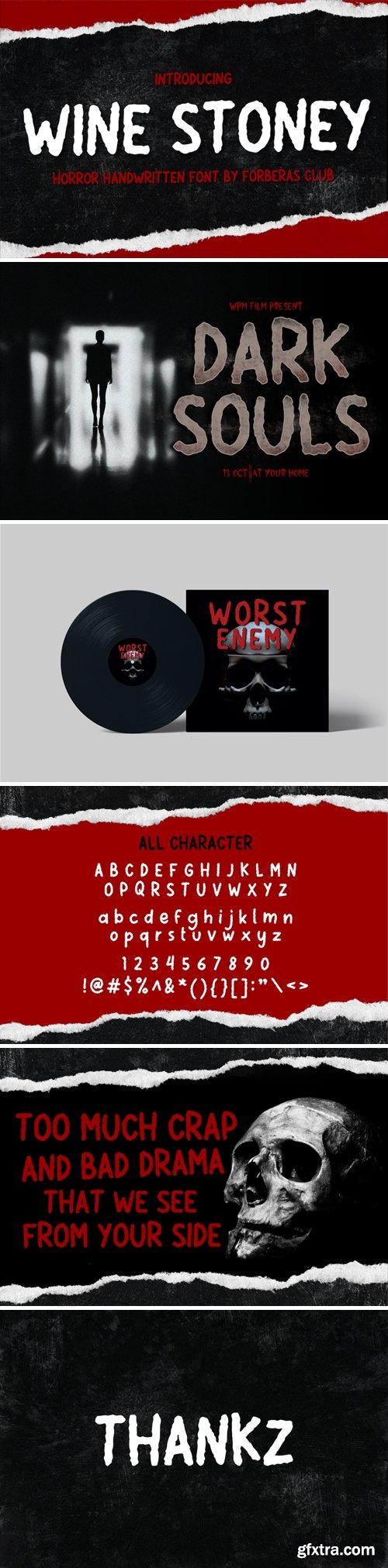
Wine Stoney Font
Wine Stoney is a Handwritten Script font that will make your designs look classic, horror, gothic and Halloween. It is a great font for events, Halloween Project, fashion, apparel projects, signature, album covers, logos, branding, magazines, social media posts, advertisements, but it also works great for other projects. Add it to your fonts’ library, and it will enhance your creativity!